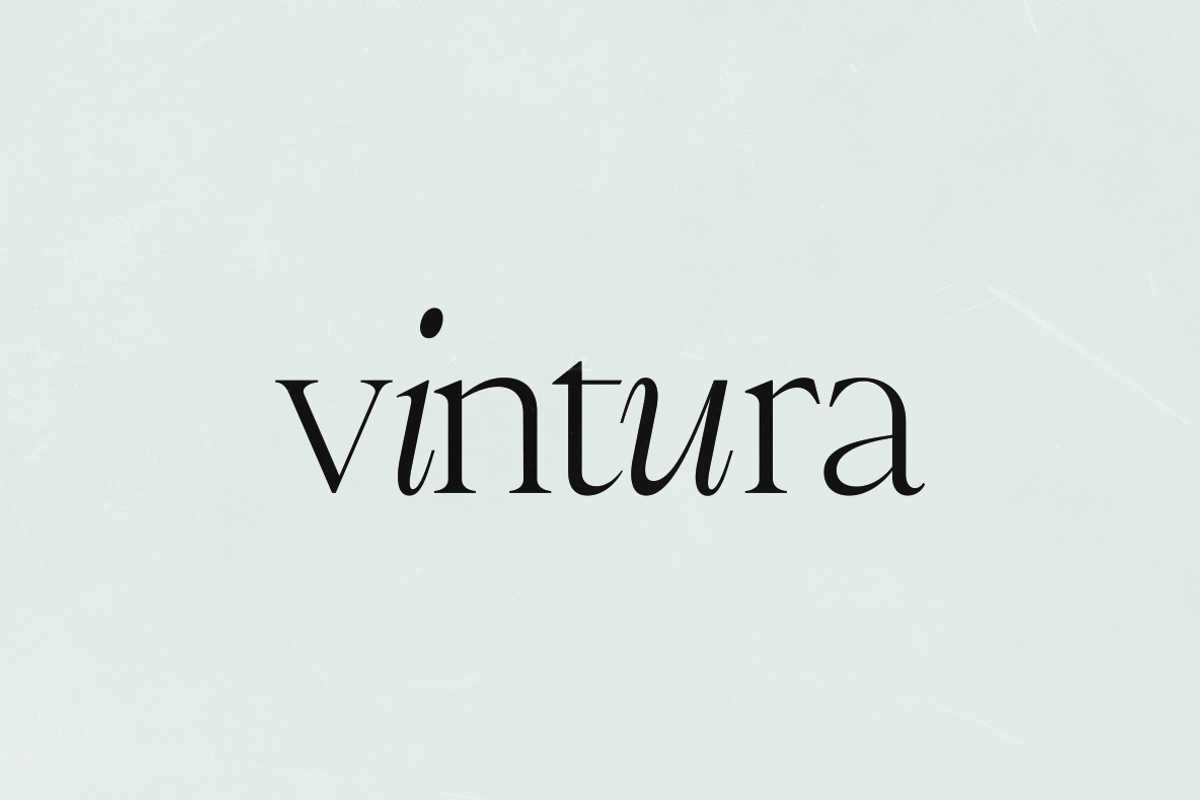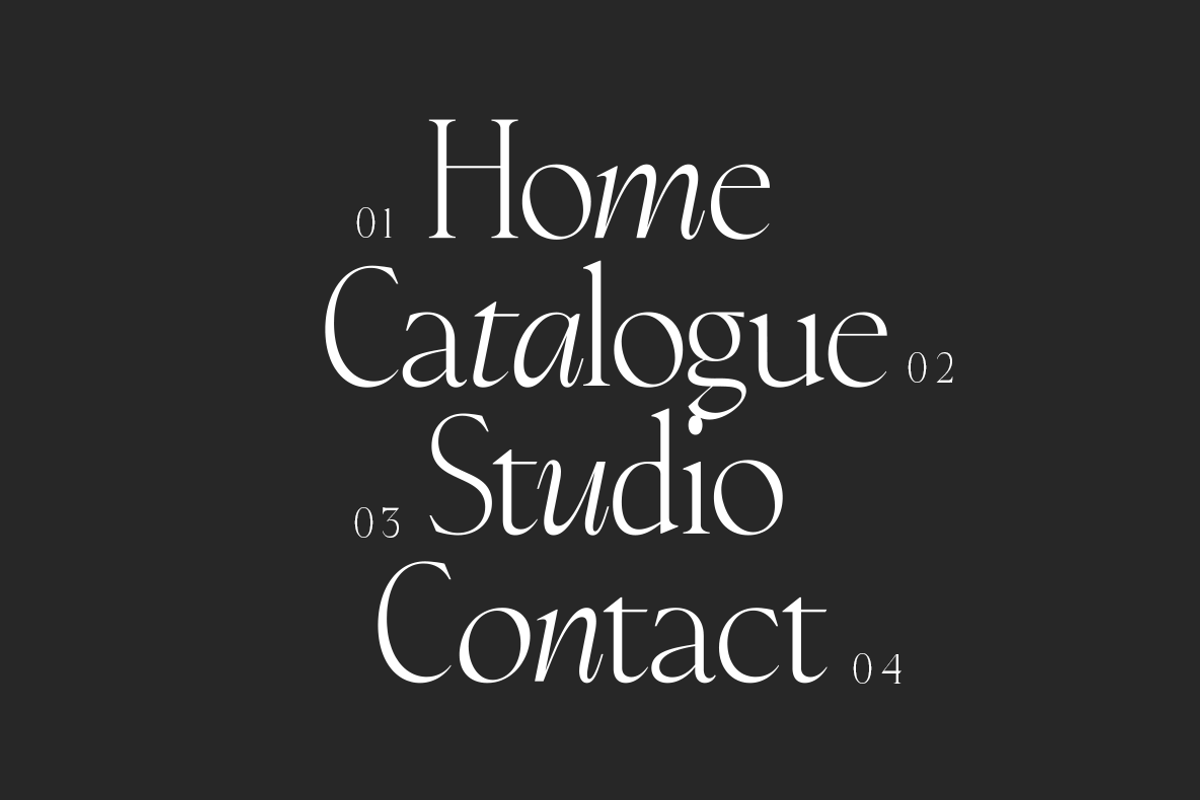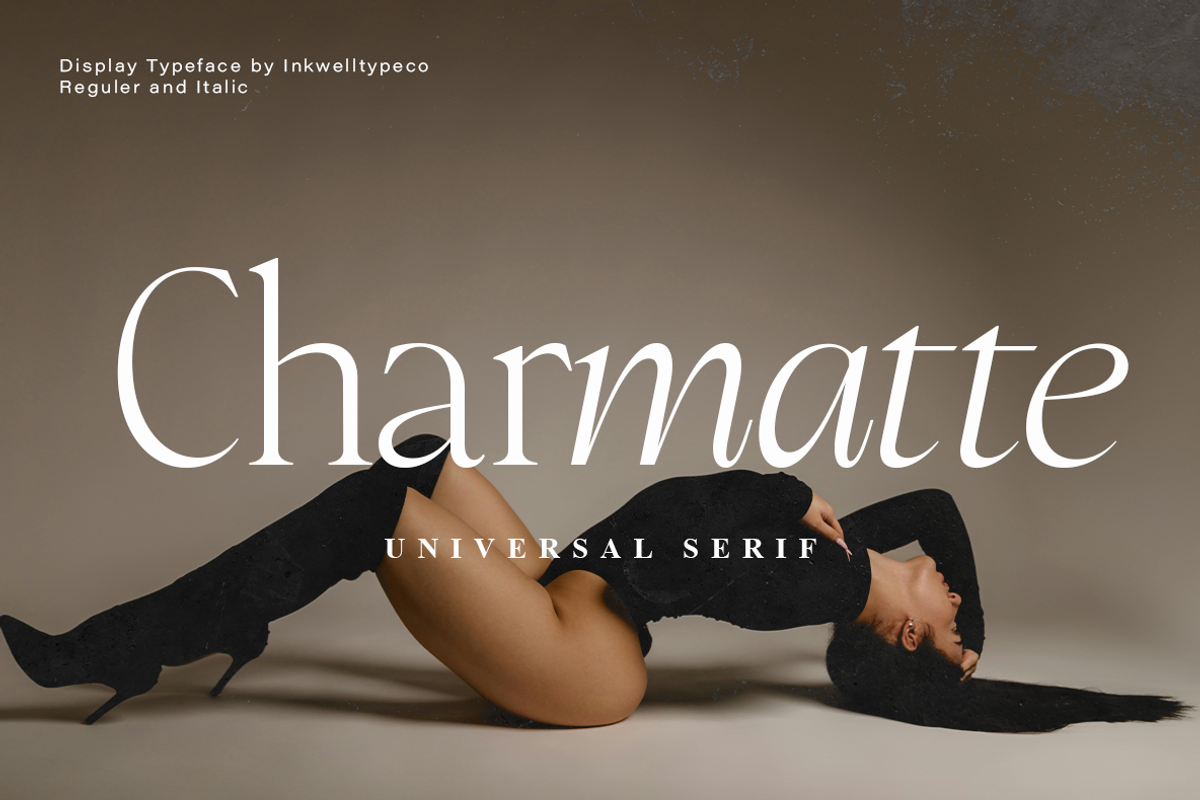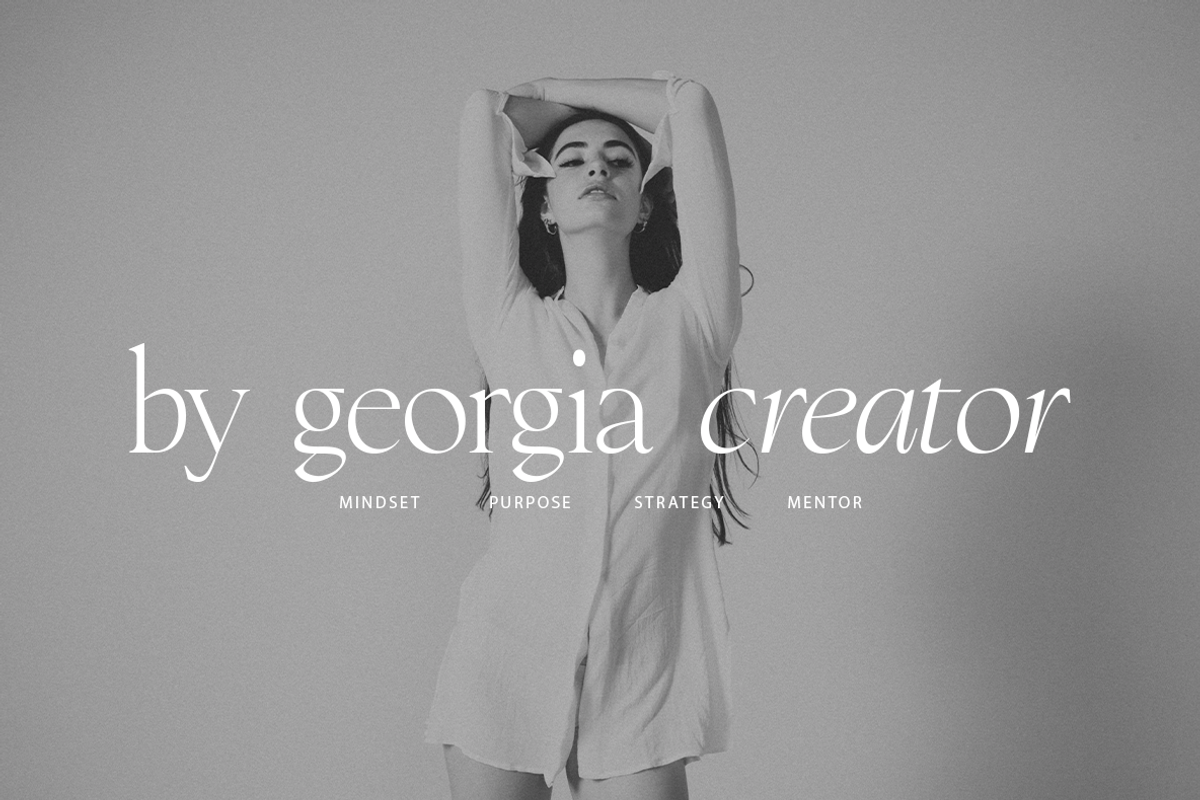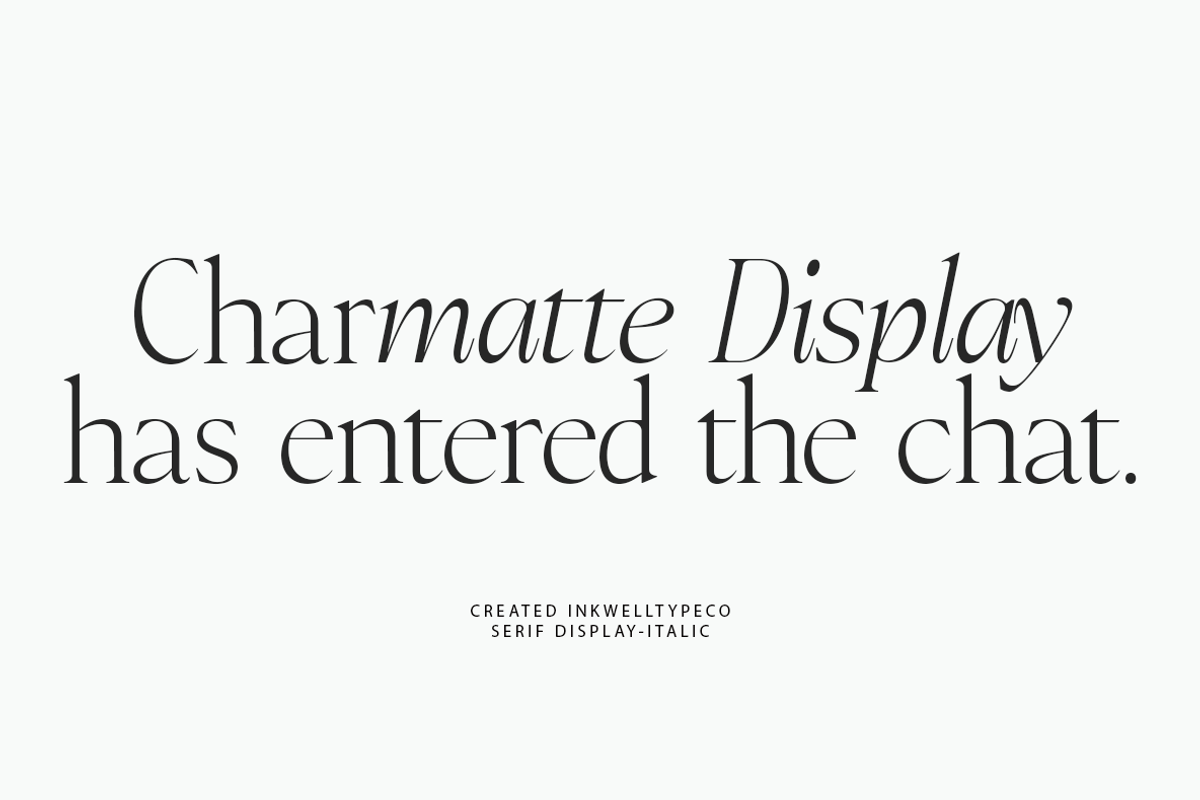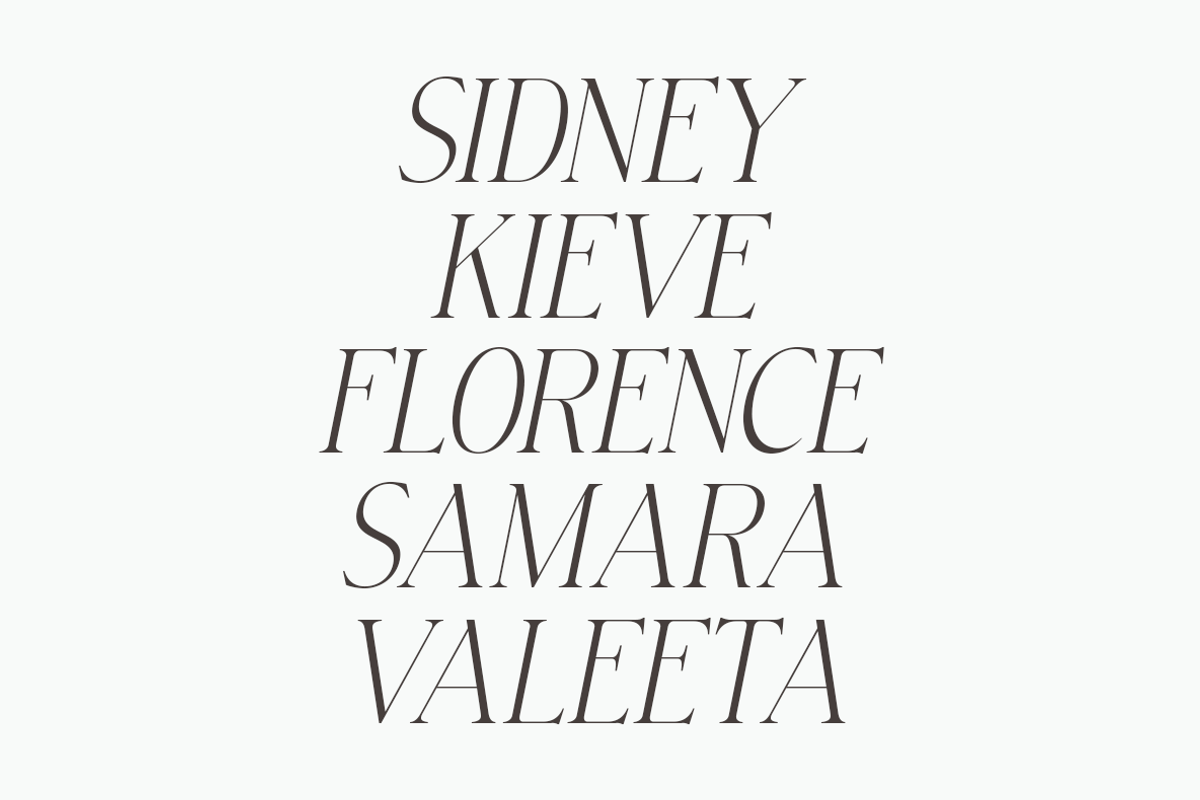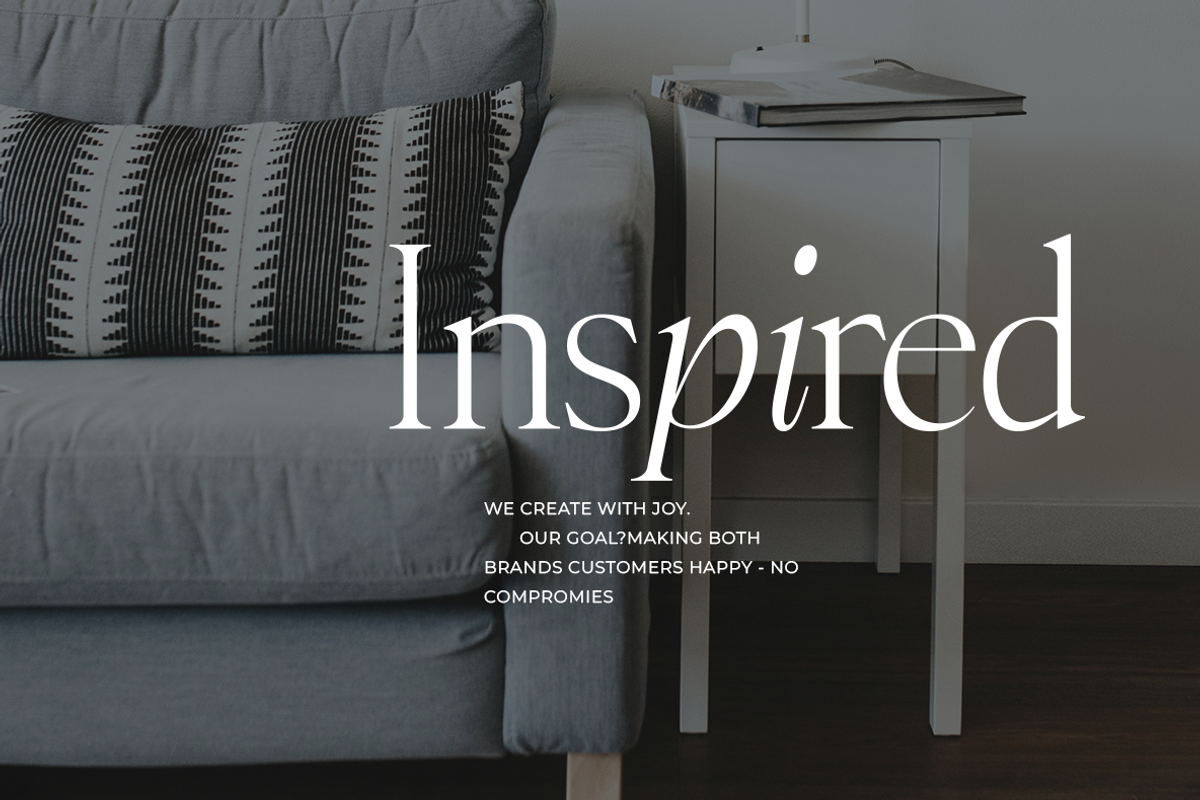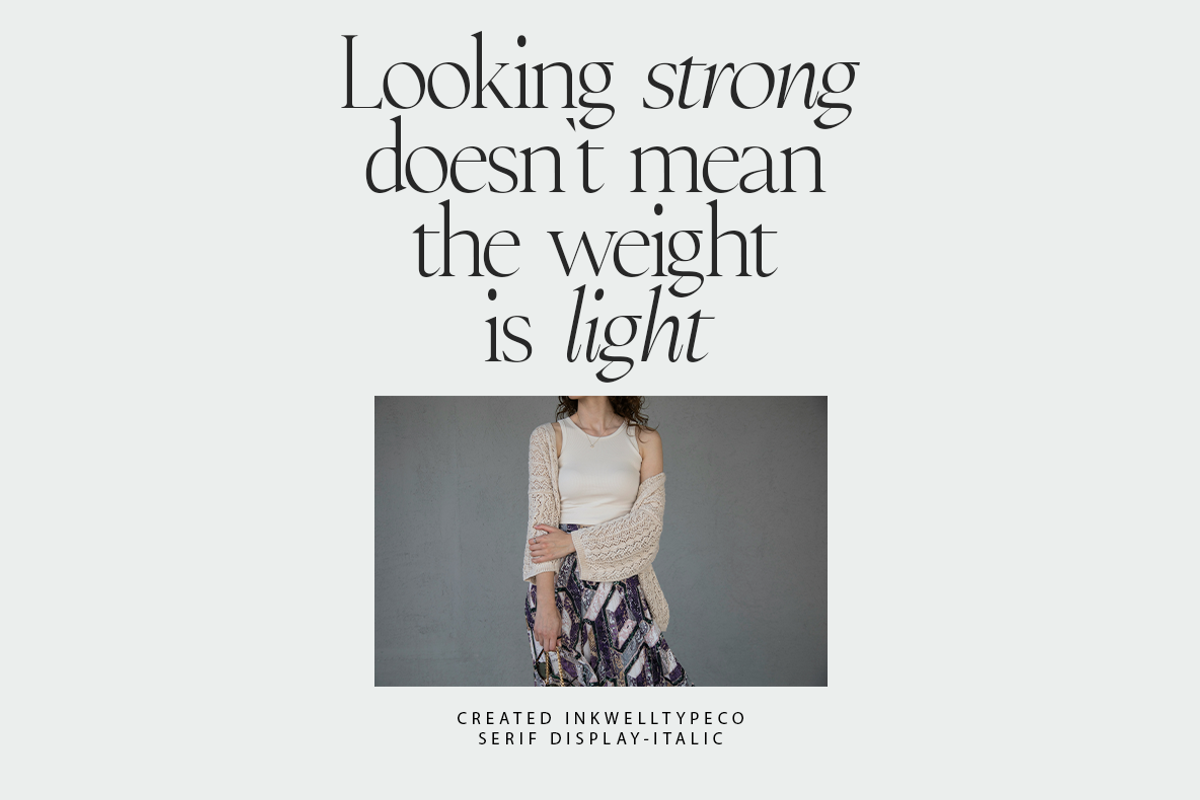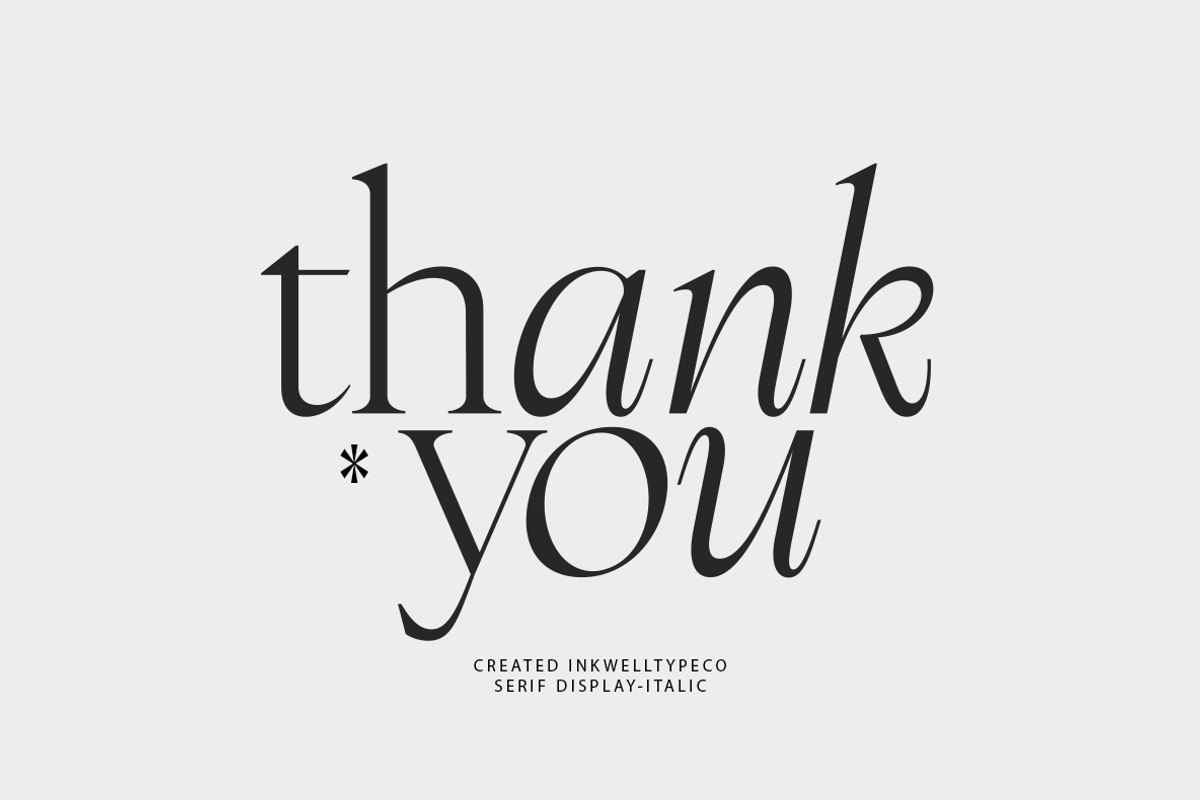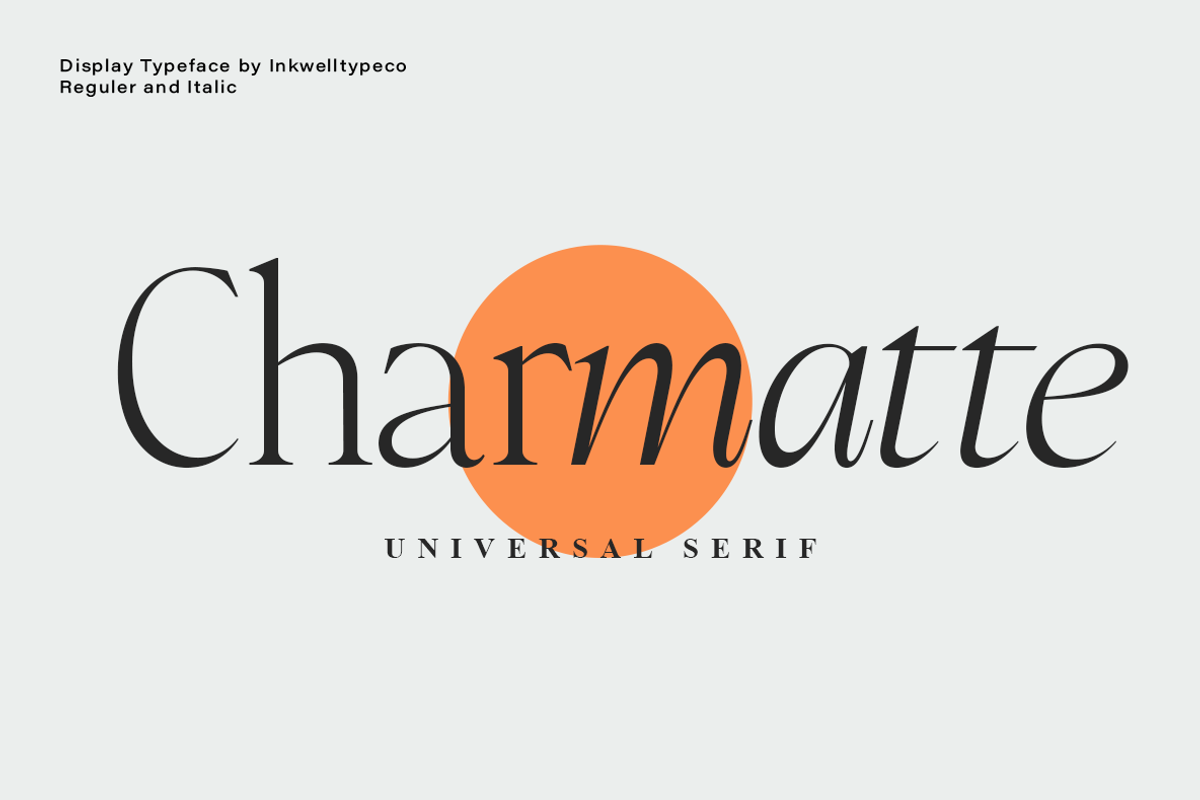
Charmatte | with italic
Charmatte is an elegant serif font designed to bring a luxurious and modern touch to any design. Featuring two styles—Regular and Italic—Charmatte offers the perfect balance of boldness and softness, making it ideal for branding, editorials, packaging, and fashion design.
The Regular style showcases strong, refined letterforms with distinctive serifs, exuding professionalism and sophistication. Meanwhile, the Italic style adds a dynamic and artistic touch with smooth curves that enhance elegance and visual appeal.
Perfect for premium logos, fashion magazines, minimalist websites, luxury invitations, and high-end typography designs, Charmatte is crafted with delicate details to elevate your creative projects.